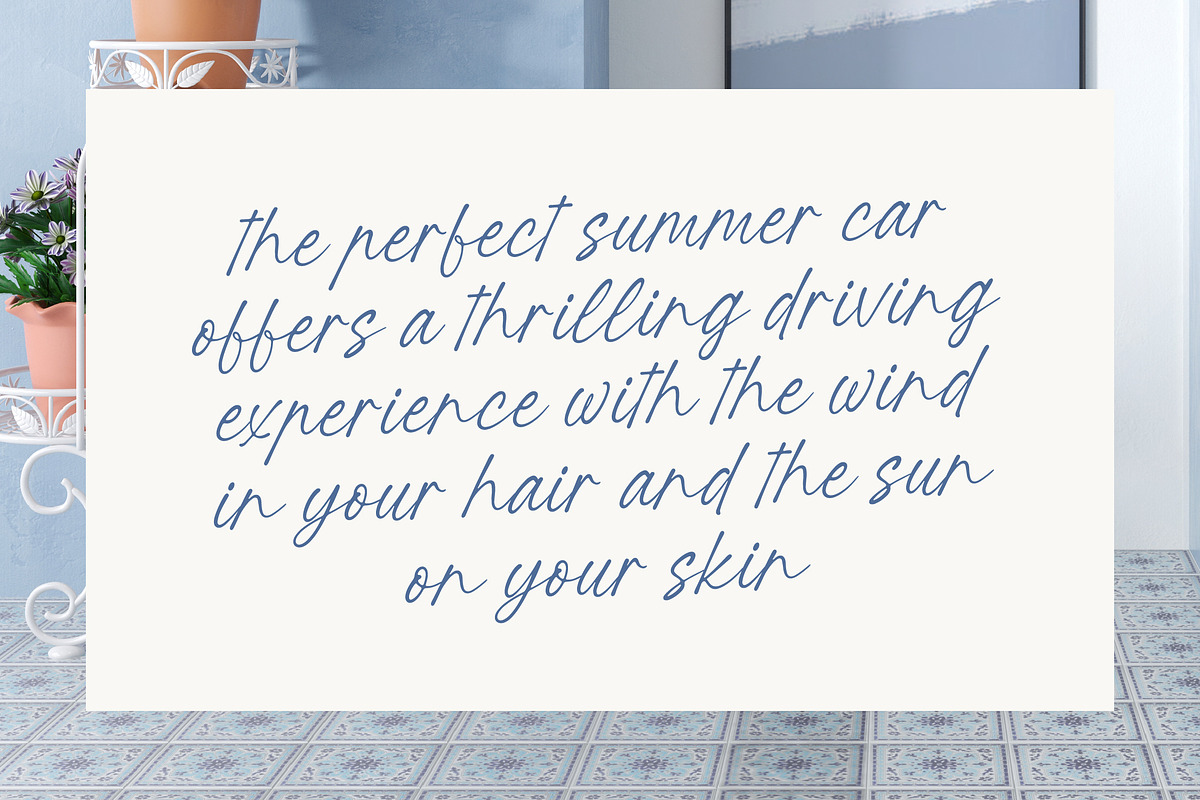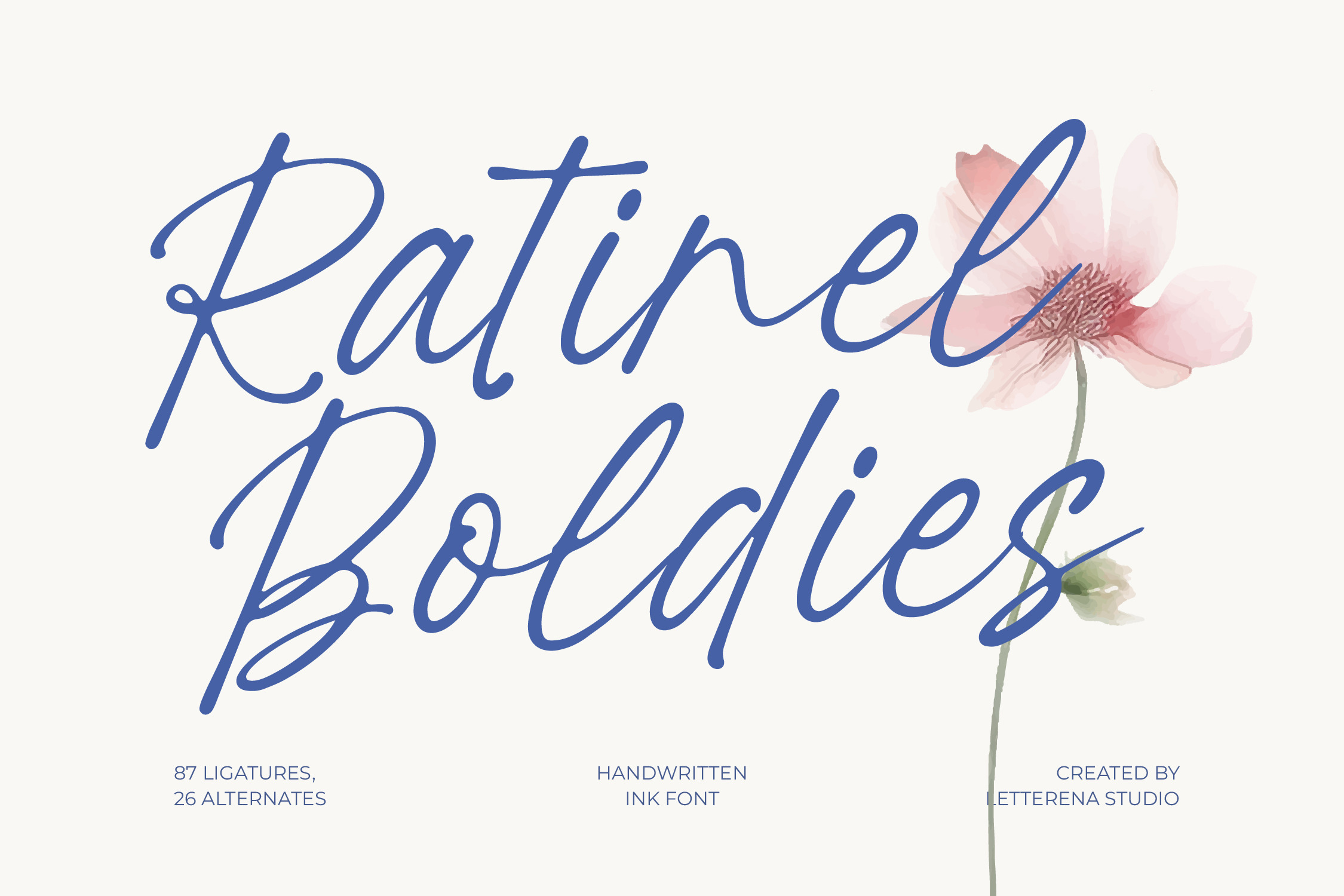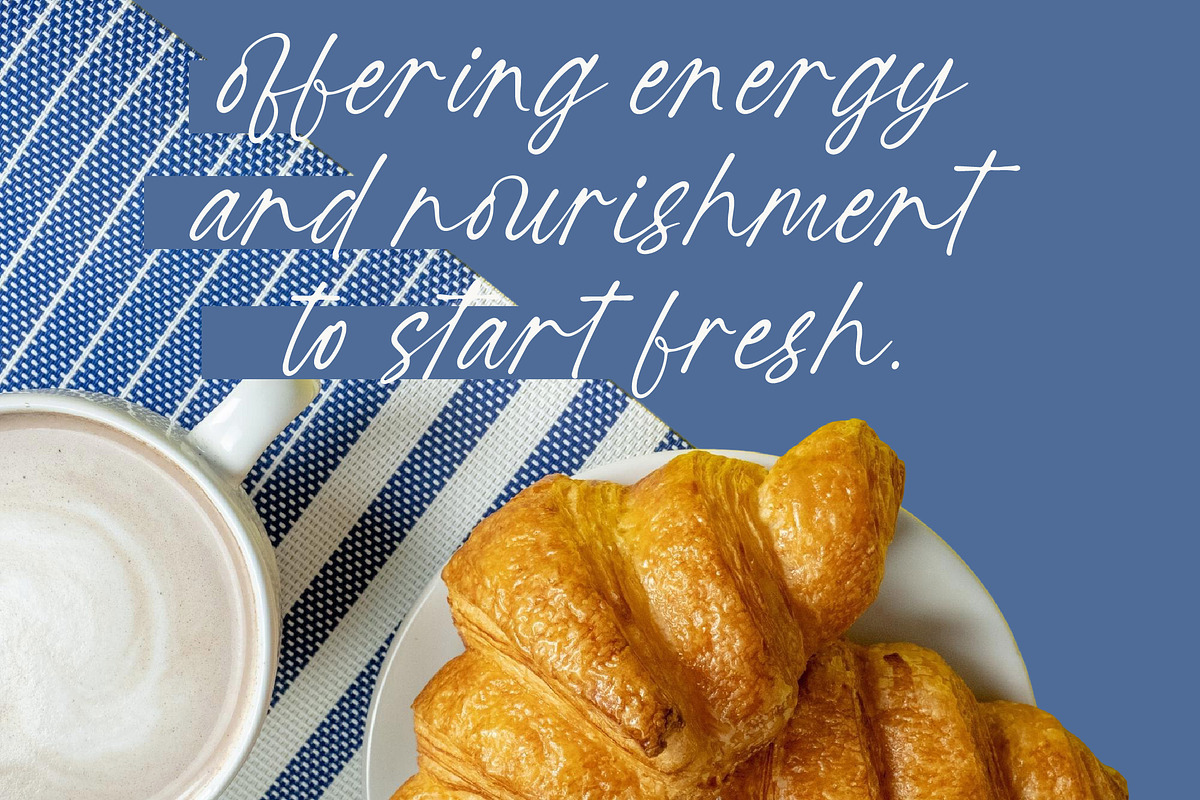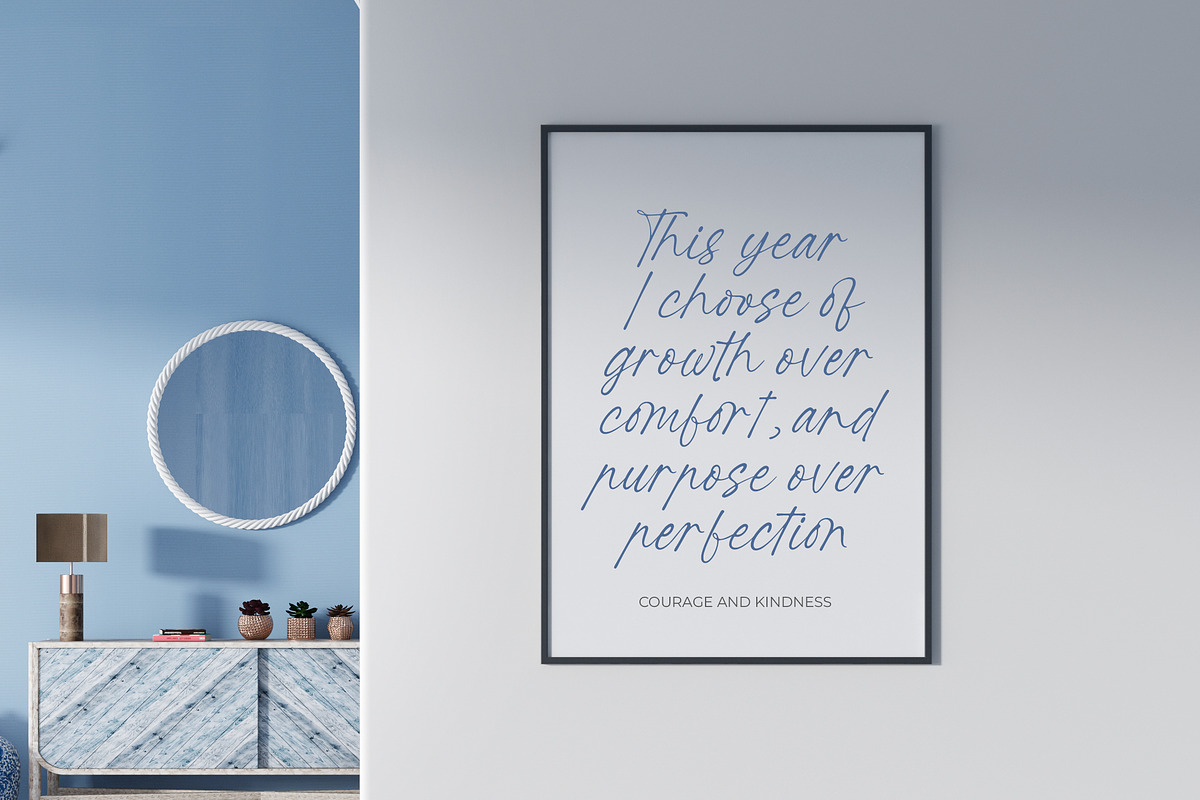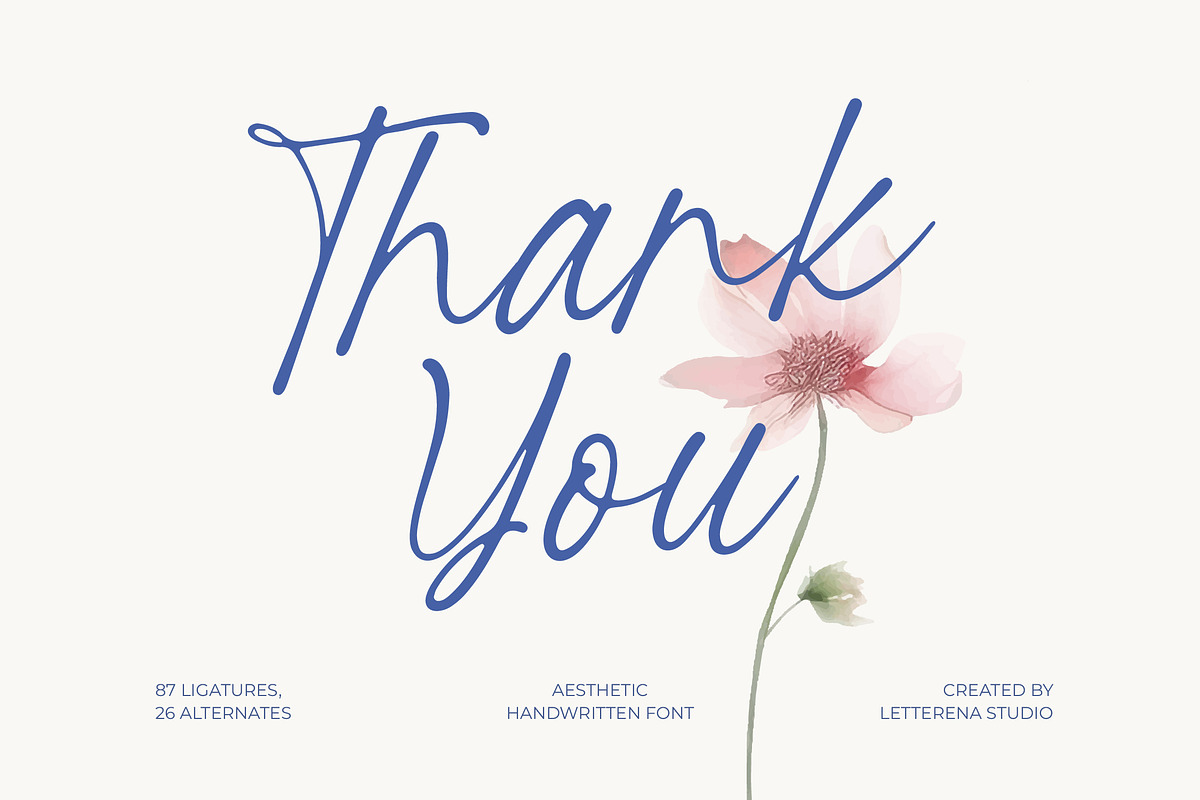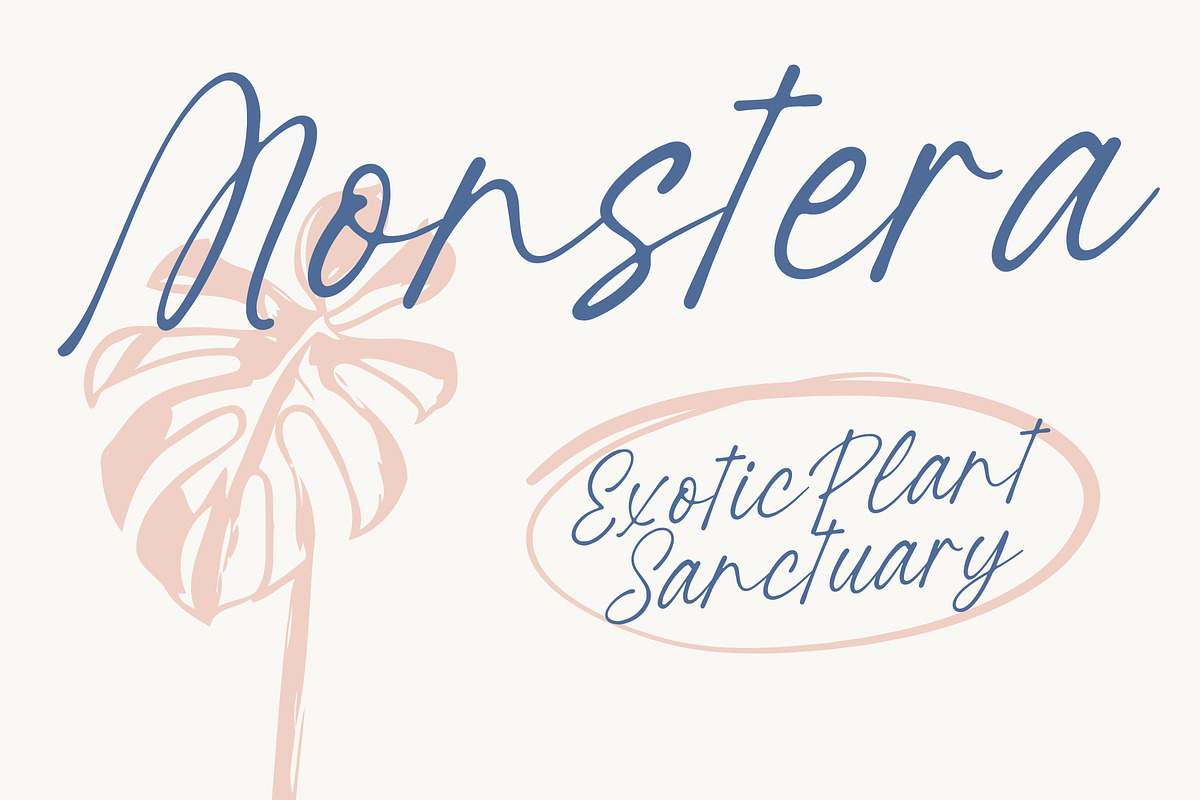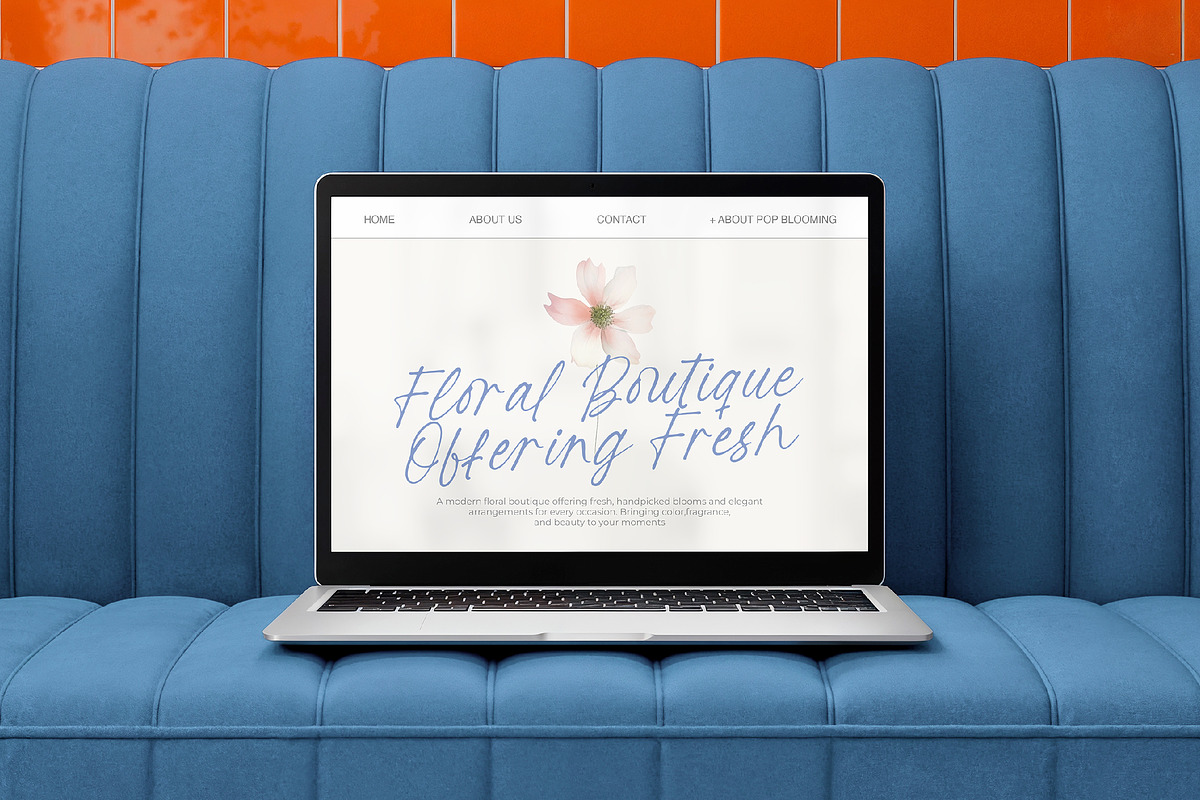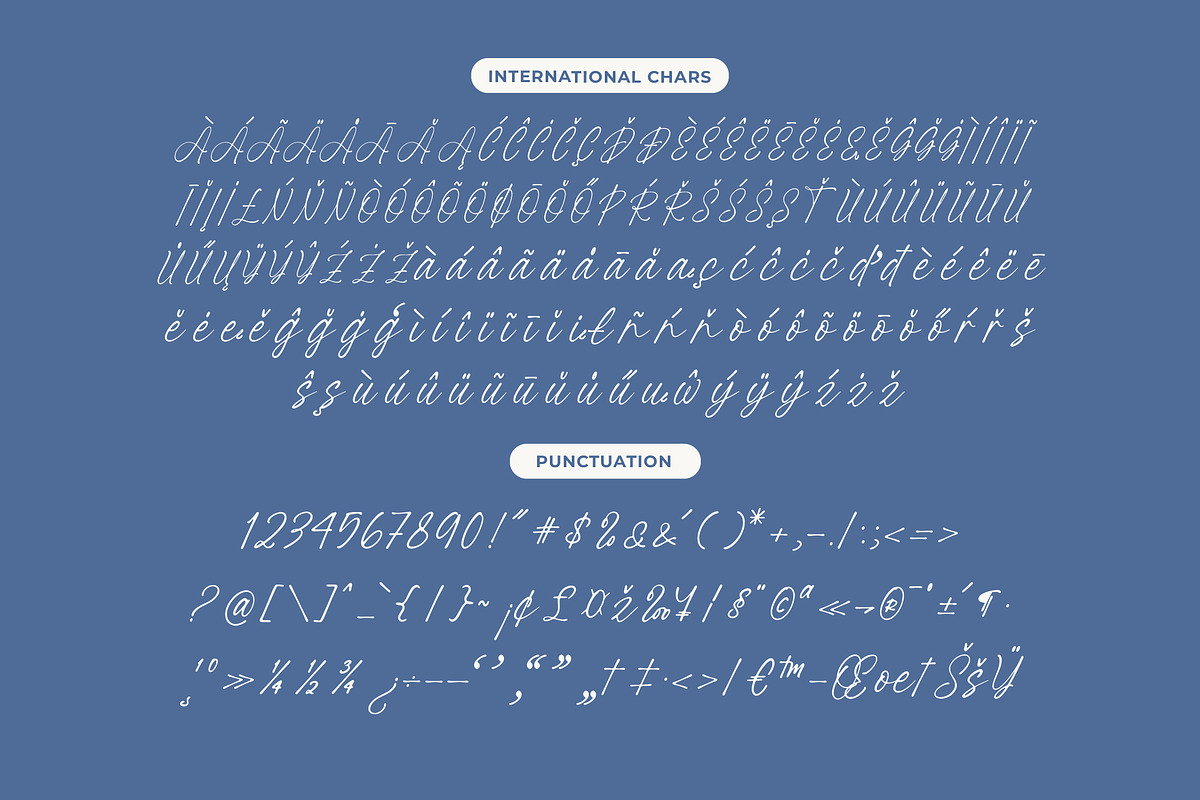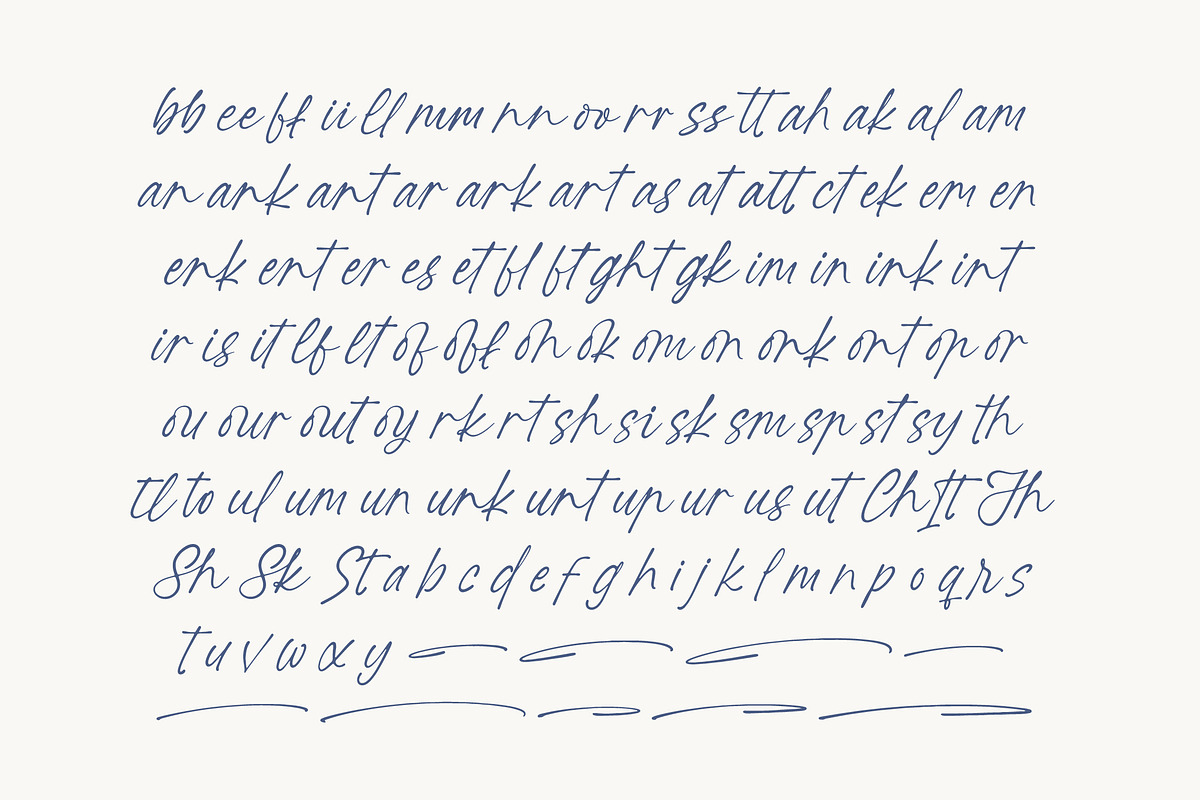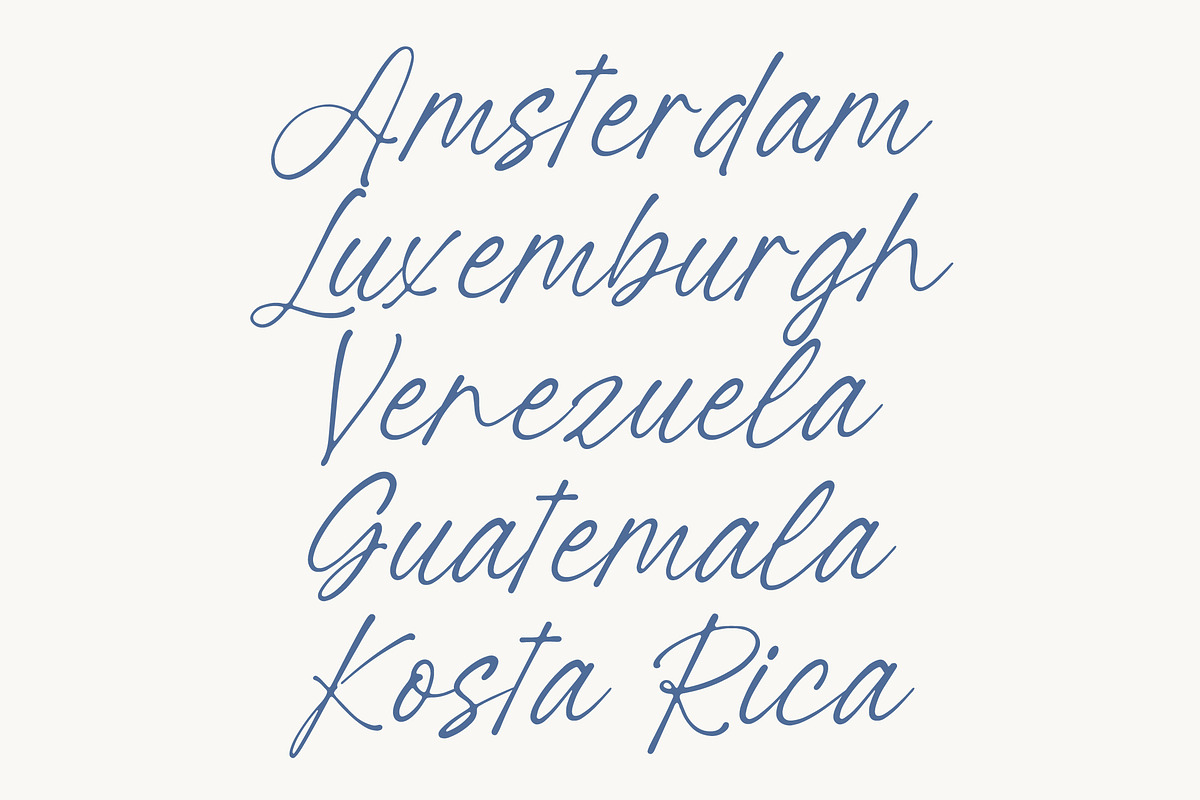
Ratinel Boldies Handwritten Ink Font
Ratinel Boldies - Handwritten Ink Font , Ratinel Boldies is a handwritten ink font with a clean, elegant flow and natural charm. Featuring 87 ligatures and 26 alternates, this font captures the beauty of organic handwriting, making it perfect for branding, invitations, greeting cards, and modern packaging. Its smooth strokes and stylish letterforms create a handwritten feel that’s both personal and professional, ideal for projects seeking warmth and sophistication.